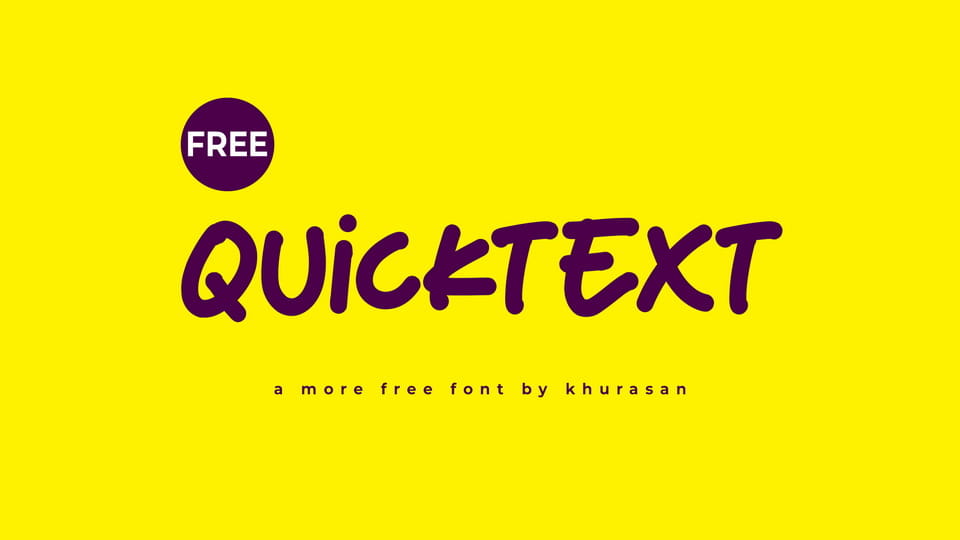
Download Quicktext font, a fast, handwritten display typeface designed to capture the feeling of quick notes and spontaneous ideas. Its energetic strokes and casual style create a lively and informal mood, making it perfect for dynamic and expressive designs.